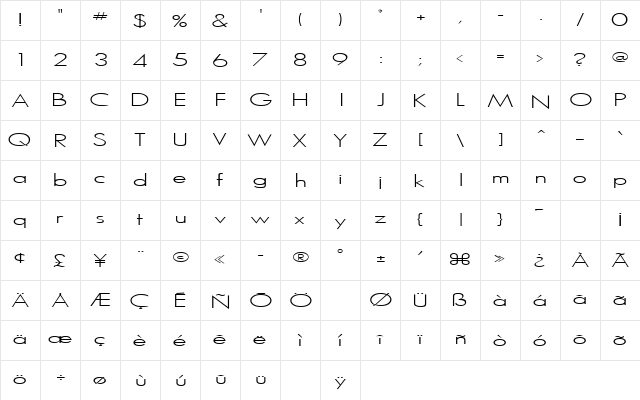
Alden Regular Font Preview
Alden Regular
Design Context for Alden Typeface
Alden is a composed and adaptable typeface that performs quietly and consistently across a wide range of design contexts.